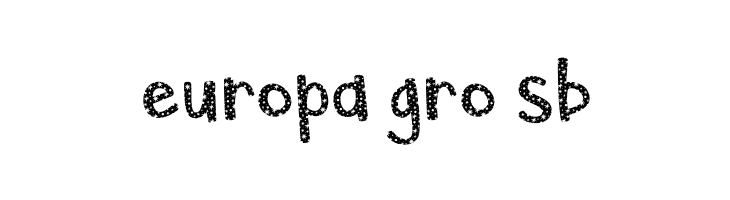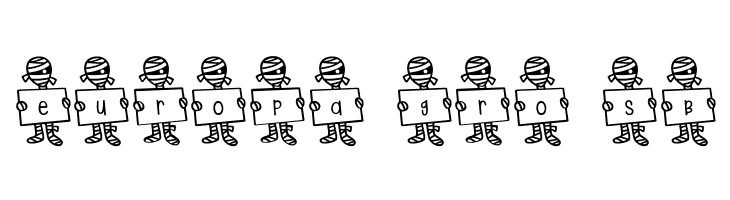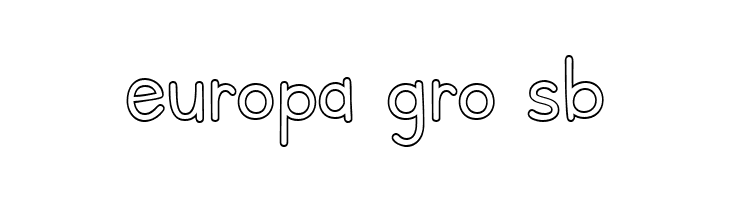
A playful, decorative font with characters in oval shapes, ideal for festive designs.
A festive, snowflake-adorned font perfect for holiday-themed designs.
A playful, festive font with a hand-drawn, dotted texture ideal for holiday themes.
A whimsical font with letters held by cartoon mummies, perfect for spooky themes.
A whimsical font with letters held by cartoon witches, perfect for magical themes.
A festive, ornament-adorned font perfect for holiday projects.
A playful outline font with rounded edges, perfect for educational and creative projects.
A clean, outlined font with rounded edges, perfect for educational use.
A bold, playful font with rounded characters and an extruded effect.
A fiery, flame-embellished font perfect for spooky, dramatic designs.